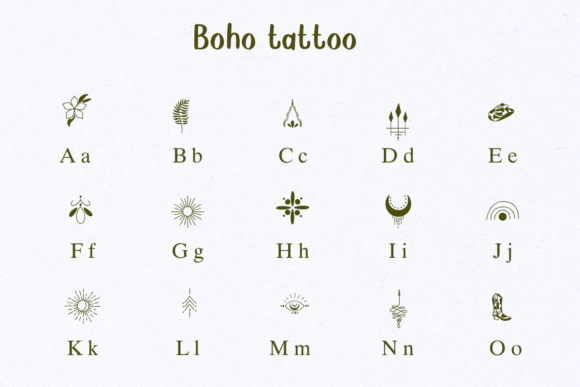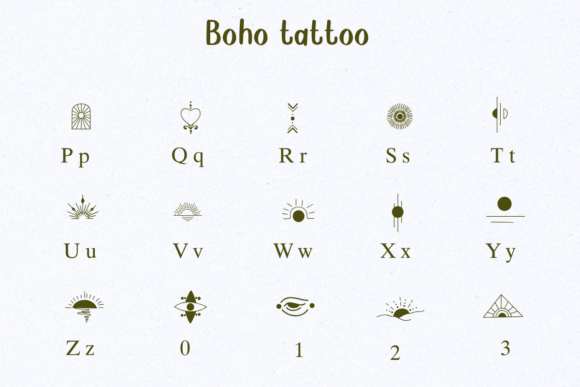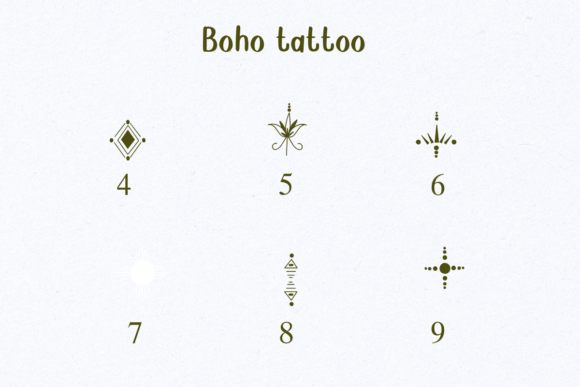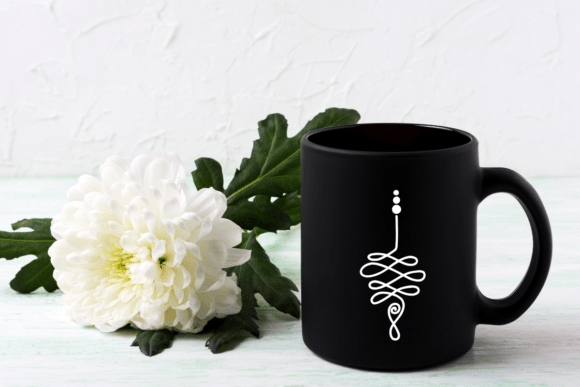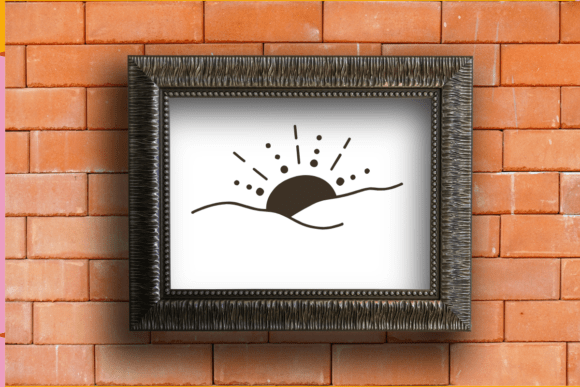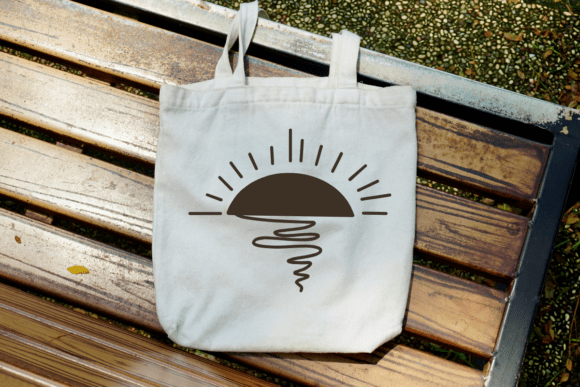
Embracing the Bohemian Vibe: Unleashing the Beauty of Boho Tattoo Fonts
Have you ever sat down with a blank page, a pencil, and a dash of inspiration, only to watch your creativity unfold into a stunning piece of art? That’s exactly what happens when you tap into the world of Boho Tattoo Fonts. These enchanting fonts are designed to evoke the free-spirited nature of the bohemian lifestyle, perfect for adding a touch of whimsy to your next design project.
The Boho Tattoo Font is a treasure trove for designers, offering a unique blend of elegance and playfulness that’s sure to captivate audiences. With its intricate details and artistic flair, this font is perfect for creating one-of-a-kind designs that stand out from the crowd. Whether you’re working on a tattoo design, a logo, or simply a piece of art, the Boho Tattoo Font is an invaluable tool that will help you unleash your creativity and bring your vision to life.
Boho Tattoo Font Key Features
- Unique Hand-Drawn Design: The Boho Tattoo Font features a distinctive, hand-drawn style with intricate details and textures, perfect for adding a touch of bohemian flair to your designs.
- Size and Character Set: The font includes a wide range of characters, including uppercase and lowercase letters, numbers, and punctuation marks, as well as a variety of special characters and symbols.
Boho Tattoo Font Review
Overall, I think the Boho Tattoo Font has a lot going for it, but it’s not without its flaws. ✨ The font’s unique, hand-drawn style gives it a lot of character and makes it perfect for projects that need a touch of bohemian flair. The font’s many weights and styles make it versatile and easy to use, even for beginners.
Here are some of the font’s strengths:
- ✨ Unique, hand-drawn style that adds character to any project
- ✨ Many weights and styles to choose from, making it easy to find the perfect fit
- ✨ Great for projects that need a bohemian or eclectic feel
- ⚠️ May not be suitable for projects that require a more formal or professional look
- ⚠️ Some of the characters may be difficult to read at smaller sizes
- ⚠️ May not be compatible with all font sizes or styles
Overall, I think the Boho Tattoo Font is a great choice for projects that need a unique, bohemian touch. With a little experimentation and patience, you can create some amazing designs with this font. Just be aware of its limitations and use it accordingly.
The Boho Tattoo Font is ideal for creating bohemian-inspired designs, including:
– Tattoo designs
– Album artwork
– Branding materials
– Event invitations